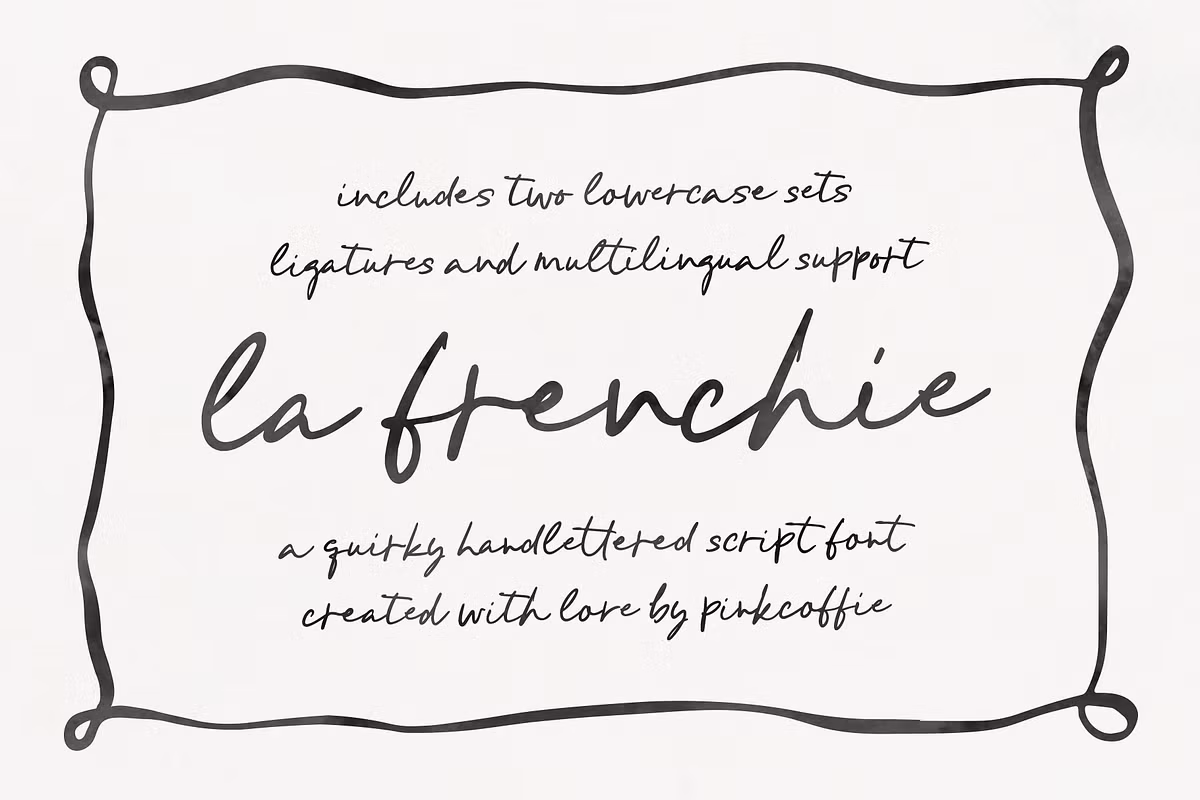
La Frenchie | Handwritten Script Font Free Download is an elegant and stylish handwritten typeface with a sophisticated and personal touch. Featuring flowing curves and graceful strokes, La Frenchie is perfect for wedding invitations, branding, logos, greeting cards, and any project that requires a chic and artistic handwritten look.
La Frenchie | Handwritten Script Font Free Download adds a romantic and refined flair to your typography, making it ideal for creative projects that need to evoke elegance and intimacy. Whether you're working on a luxe invitation, a custom logo, or a personal message, La Frenchie brings beauty and style to every letter. Download it today and add a touch of handwritten sophistication to your next design!